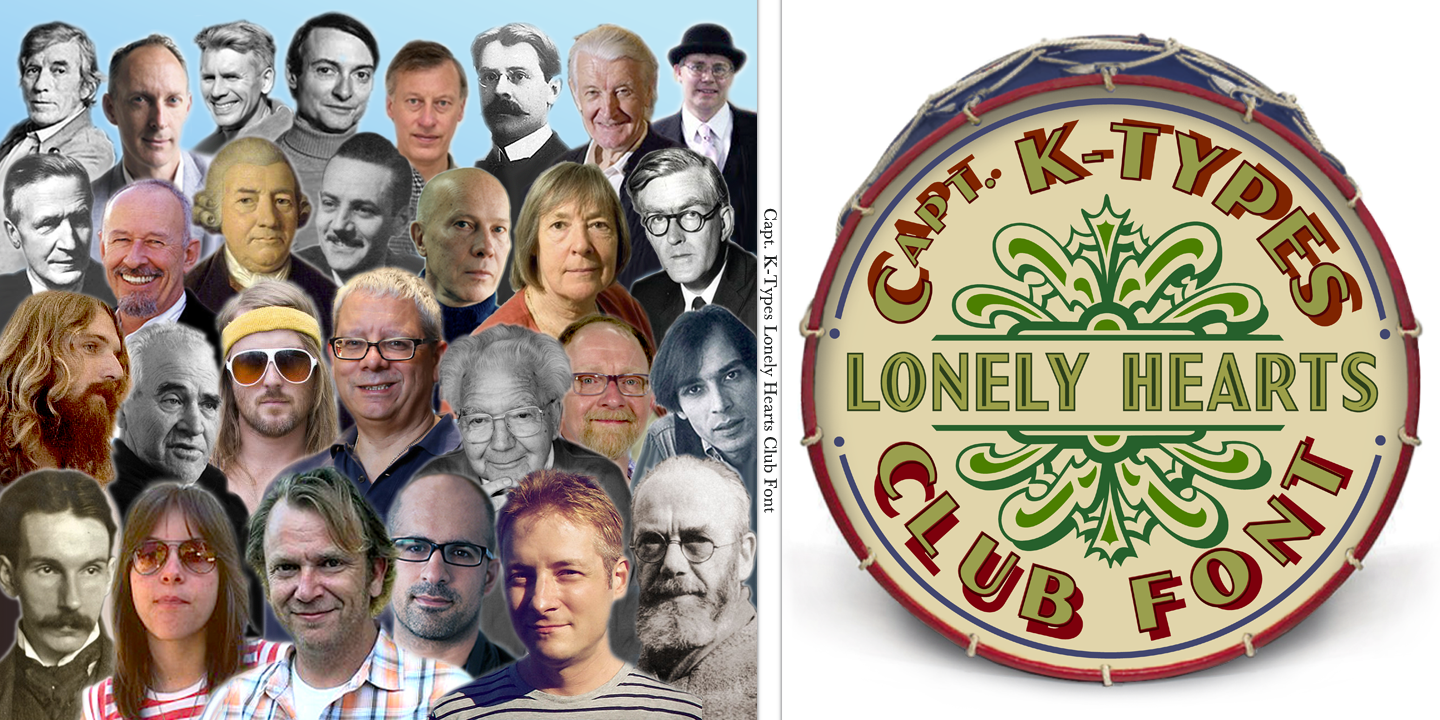
Sgt Peppers Font is a vibrant and wonderfully expressive typeface, perfectly suited for projects that aim to capture the kaleidoscopic spirit of the 1960s, the psychedelic energy of rock and roll, and an undeniable sense of artistic freedom. Imagine it gracing the posters for a retro music festival, adding a groovy and iconic flair to band merchandise, or making an unmissable statement on album covers and music event promotions. It's also an excellent choice for crafting striking logos for creative ventures, designing impactful social media graphics that pop with character, or infusing any digital content and advertisements with a bold, unconventional, and truly imaginative vibe. If you're looking to convey creativity, nostalgia, and an undeniable sense of musical revolution, Sgt Peppers Font is an outstanding selection.
What makes Sgt Peppers Font so exciting? It’s its unparalleled ability to embody the adventurous typography of an era that redefined art and music. This font often features distinctive letterforms, playful baselines, or a hand-drawn quality that gives it an undeniable charisma and visual richness. Despite its often whimsical or experimental appearance, Sgt Peppers Font is meticulously designed to maintain excellent readability, ensuring your message is communicated beautifully and with an engaging, rhythmic flow. Designers will appreciate its versatility in creating designs that feel both artistically profound and powerfully memorable, making it a go-to choice for brands and projects that aim to evoke a sense of historical cool, boundless creativity, and a timeless appeal that echoes classic rock.
The Sgt Peppers Font family is typically designed to showcase a singular, high-impact display style that perfectly embodies its unique character. While it may not feature extensive weight variations like a traditional text font, its strength lies in its inherent personality and often includes stylistic alternatives, ligatures, or a set of unique glyphs that enhance its playful and artistic aesthetic. These subtle details allow Sgt Peppers Font to maintain its cohesive and captivating look across various applications, from commanding headlines for themed events to expressive digital artwork for music lovers. Discover the psychedelic charm of Sgt Peppers Font Free Download and infuse your designs with an unforgettable burst of creative energy.